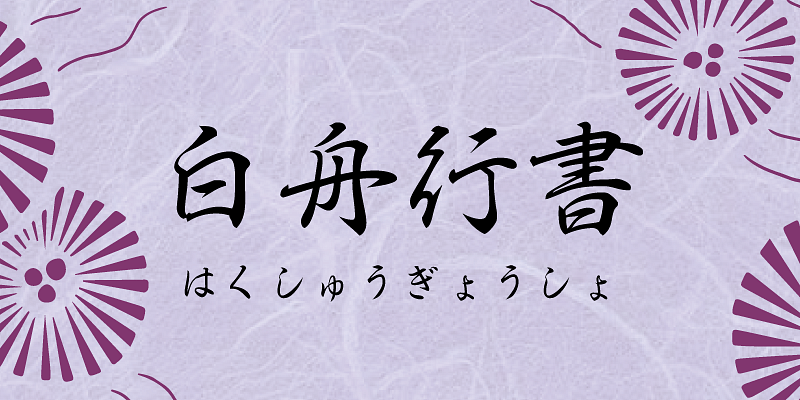
One of the most popular brush-script typefaces, this gyosho (semi-cursive calligraphic style) typeface has gorgeous stroke formation and sharp and powerful letter forms.
Supported glyphs include: 1,026 Kyoiku-yo-kanji (Ideographic Characters for Education), alphanumeric, full-width hira-gana and kata-kana, and miscellaneous symbols.